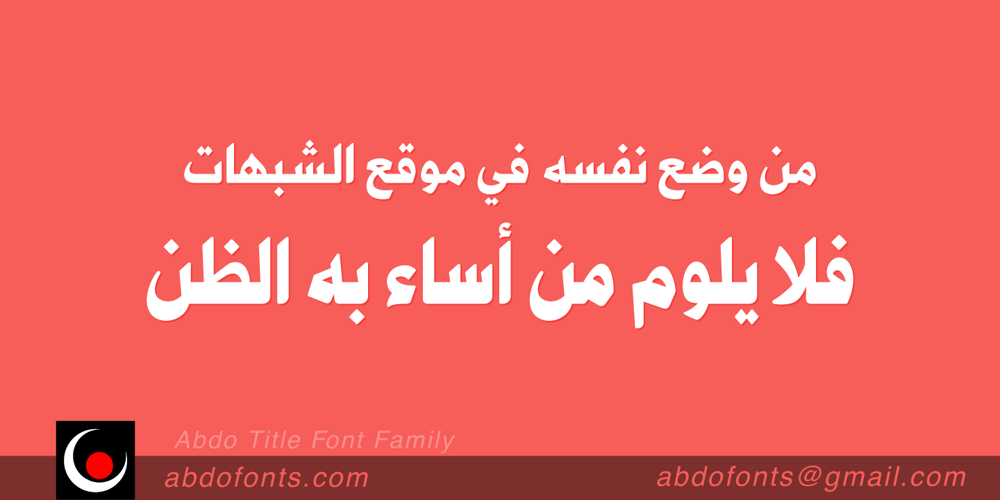
Abdo Title
Abdo Title font
Abdo Title Font Family was designed by Abdulsamie Rajab and published by Abdo Fonts. Abdo Title contains 3 styles and family package options. Abdo Title is a simple Naskh font for newspaper and magazines discriminate accurately design and clarity of reading. Abdo Title is compatible with the various operation systems and modern software. We will later add the rest of the weights. This font also suitable for books titles and advertisement.